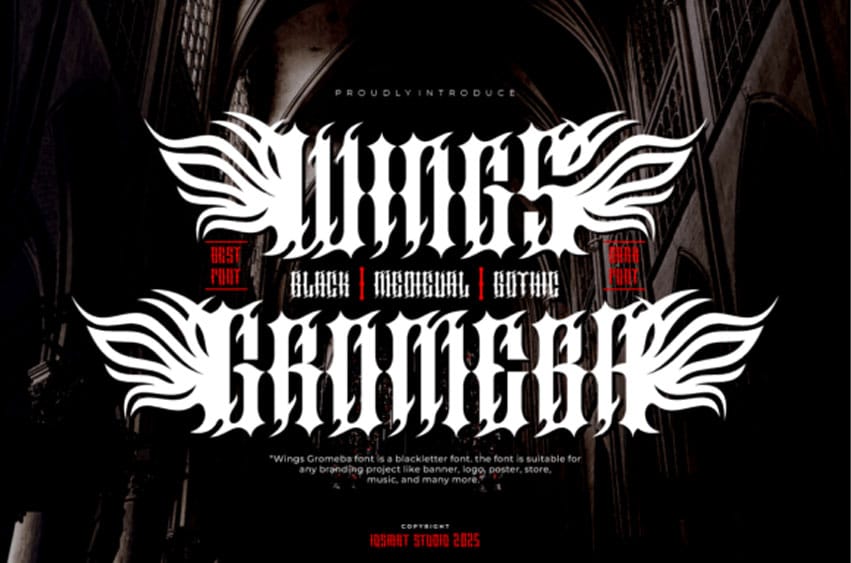
Wings Gromeba Font is a fierce and dramatic blackletter font with intense gothic energy and spiked embellishments.
Made for metal bands, dark-themed branding, or bold logo statements, it pairs a rebellious attitude with stylistic detail. Includes multiple styles: black, medium, and gothic — ideal for high-impact design.